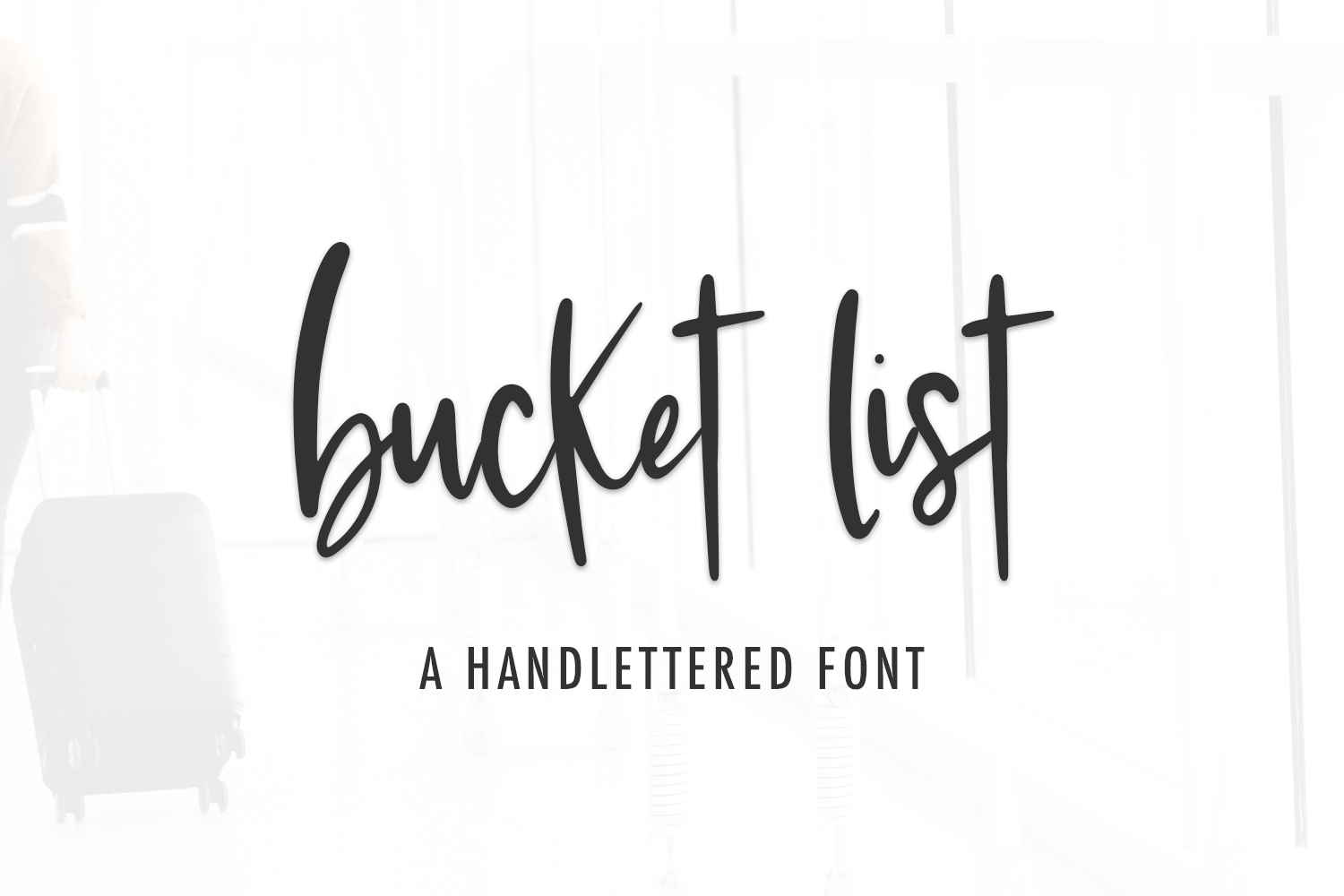
Introducing Bucket List Script, a handwritten signature style font. This inky, stylish font features a messy, casual look, mimicking handwriting.
Bucket List Script is best for:
- website design + website accents - think design blogs, travel blogs, fashion blogs, & more